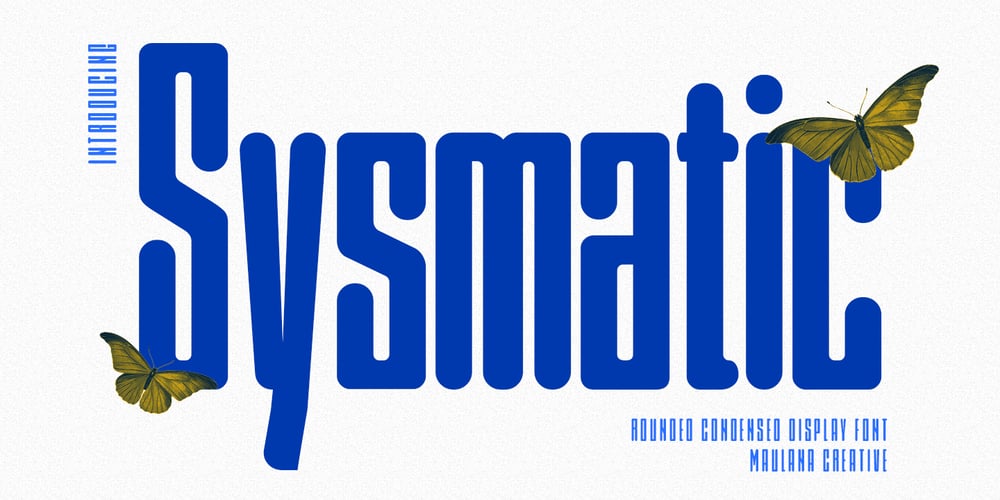
Sysmatic
Sysmatic font
Sysmatic Font Family was designed by Gilang Maulana and published by Maulana Creative. Sysmatic contains 1 styles and family package options. Sysmatic is a suer condensed display sans font. With medium low contrast stroke, fun character with a bit of ligatures and alternates. To give you an extra creative work. Sysmatic font support multilingual more than 100+ language. This font is good for logo design, Social media, Movie Titles, Books Titles, a short text even a long text letter and good for your secondary text font with sans or serif. Make a stunning work with Sysmatic font. Cheers, Maulana Creative